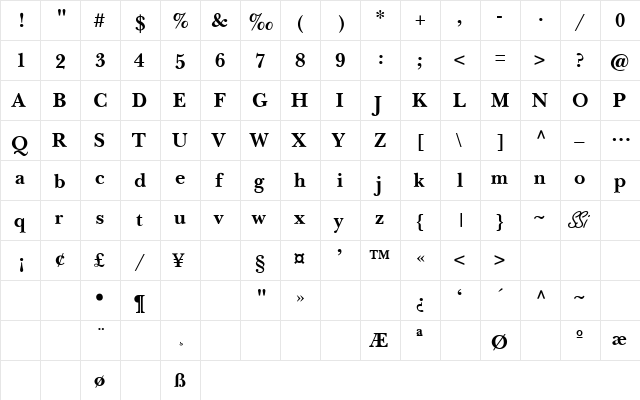
Baskerville SSi Semi Bold
Design Context for Baskerville SSi Typeface
Baskerville SSi is a composed and adaptable typeface that performs quietly and consistently across a wide range of design contexts. Its bold stroke weight gives it real presence on the page.